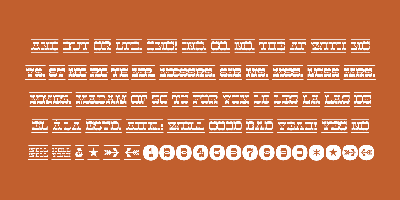
The Munish Font is ideal for editorial magazines, book publishing, academic journals, professional reports, corporate communications, legal documents, financial statements, and formal business correspondence. This reliable typeface works exceptionally well in applications where clarity and professionalism are paramount, making it perfect for both digital reading experiences and traditional print materials that require exceptional legibility and trustworthy appearance.
What makes Munish Font exciting is its perfect balance between classical typography principles and contemporary readability standards. The font's carefully crafted letterforms and optimized spacing create an atmosphere of scholarly authority and professional credibility, making it perfect for institutions and brands that want to communicate expertise and reliability. Its refined character design and excellent readability ensure comfortable reading experiences across all sizes and formats.
The Munish Font family typically includes light, regular, medium, and bold weights, complemented by matching italic styles and small caps variations. Many versions feature comprehensive character sets with extensive multilingual support, advanced OpenType features, and specialized glyphs for academic and professional publishing applications that enhance typographic precision.
For designers working on text-heavy projects that demand both elegance and functionality, Munish Font Free Download offers outstanding versatility. Its ability to maintain reader engagement while projecting authority makes it an invaluable choice for publishers, academic institutions, and any project requiring typography that combines scholarly gravitas with modern accessibility and professional excellence.